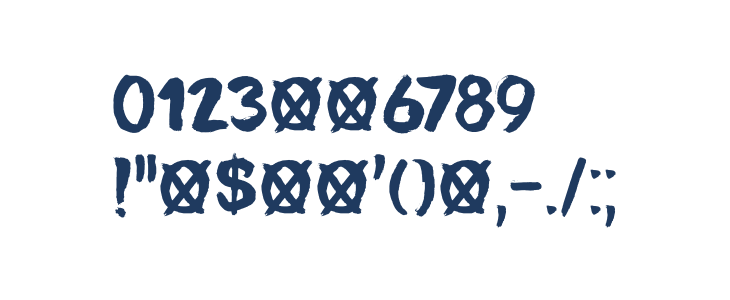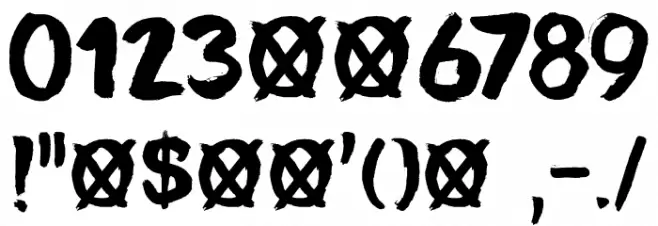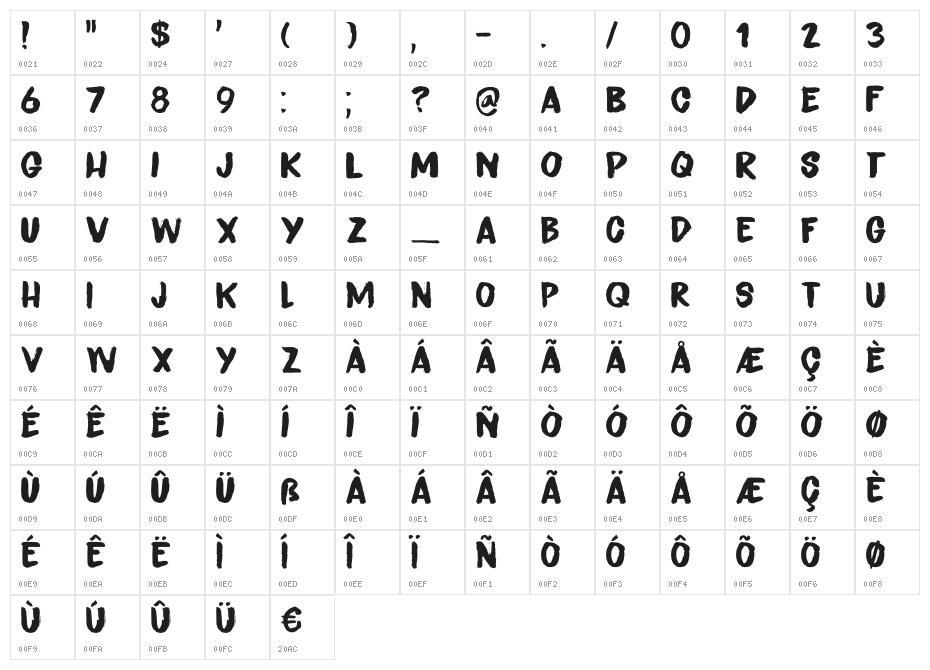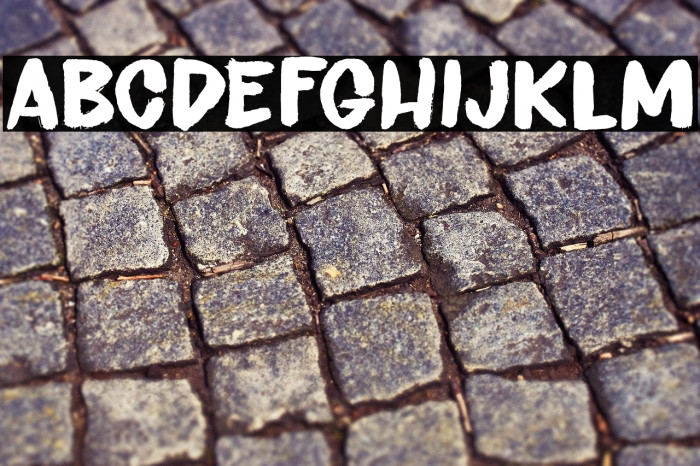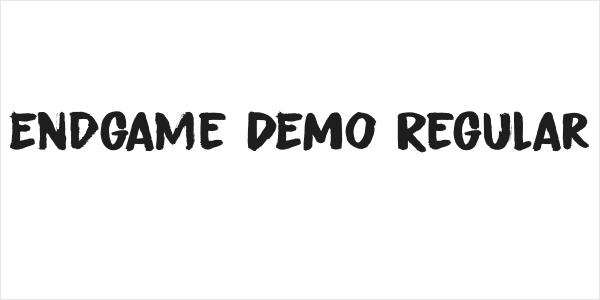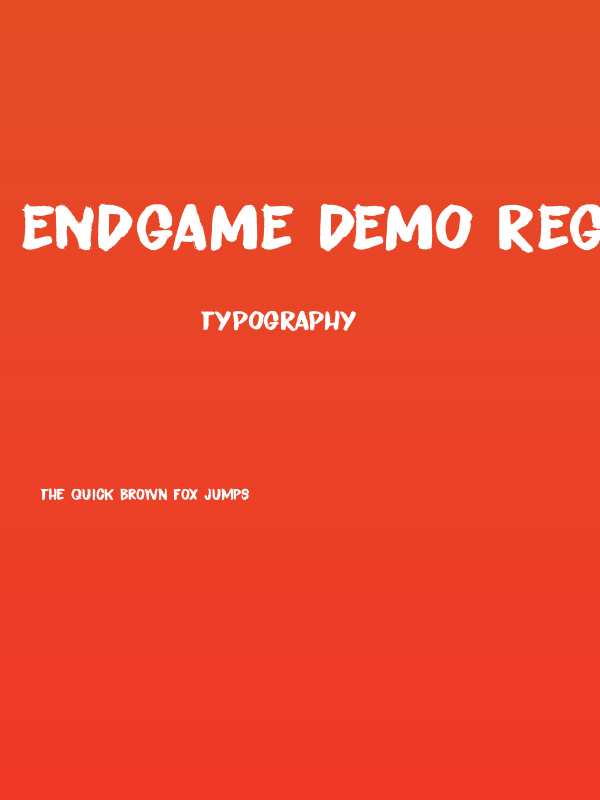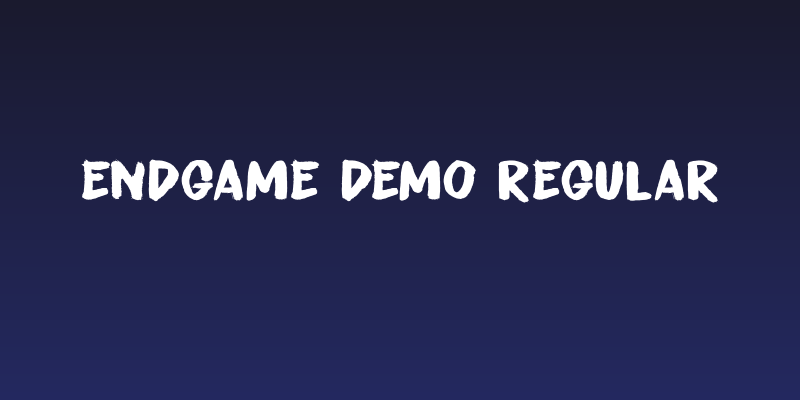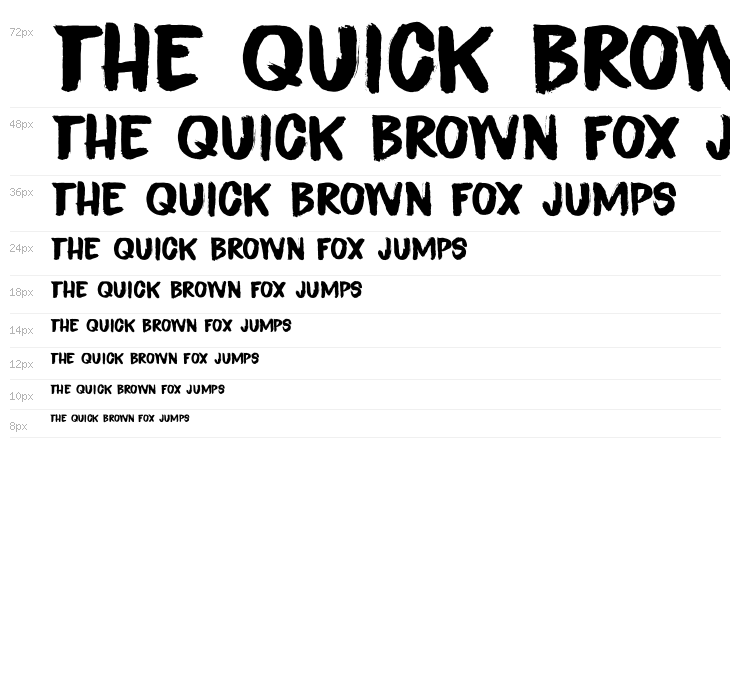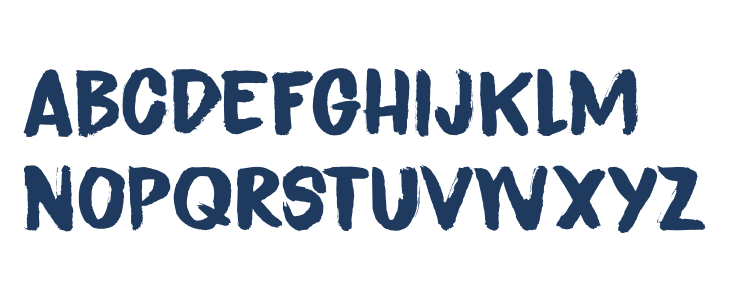
Endgame DEMO Regular Font
Endgame DEMO Regular Description
This font exhibits a bold and expressive style, characterized by its brush-like strokes and dynamic appearance. The letters have a hand-painted quality, with uneven edges and varying stroke thickness that add a sense of movement and energy. The uppercase and lowercase letters maintain a consistent style, with the uppercase being slightly more pronounced. The numbers and special characters follow the same artistic approach, making the font suitable for creative and informal applications. Its unique style makes it stand out, offering a visually striking option for various design projects.